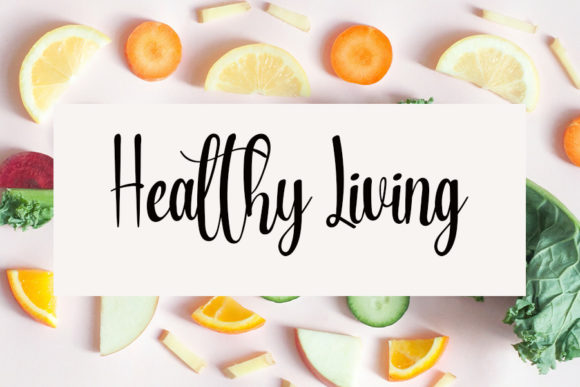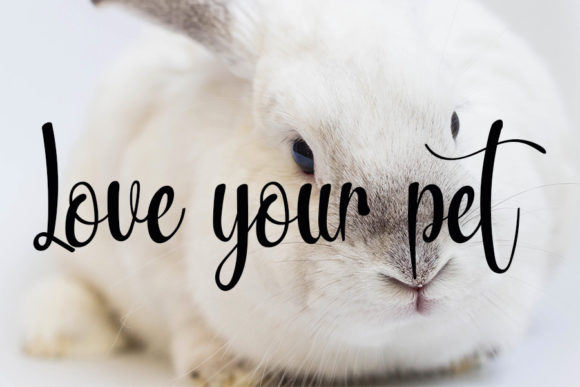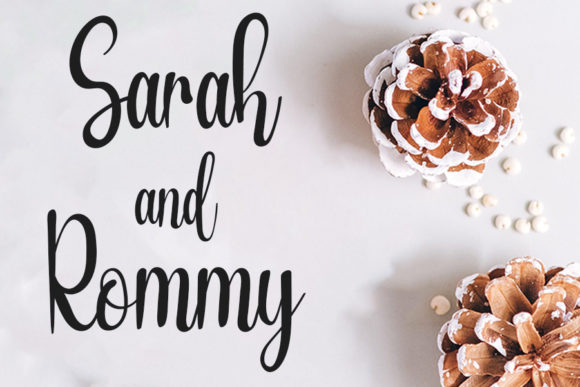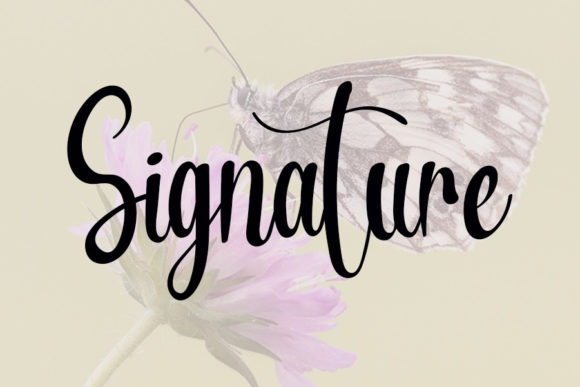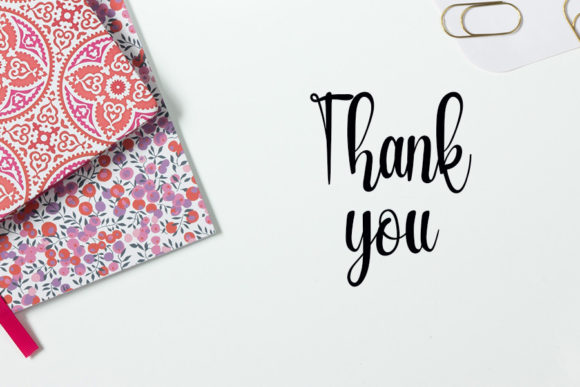
Natasya Font
About Natasya Font
Natasya is a cool handwritten font that effortlessly combines a modern vibe with spotless form, drawing inspiration from classic calligraphy. With a balanced and varied appearance, this font strikes the perfect equilibrium—not too thin and not too thick. Its design was intricately crafted to elevate the aesthetic of your projects, bringing a touch of sophistication to your creative endeavors.
At its core, Natasya emanates a cool and contemporary energy. The handwritten style adds a personal and approachable touch, making it suitable for a wide range of projects where a modern yet refined aesthetic is desired. The font’s versatility shines through, adapting seamlessly to diverse applications, from digital platforms to printed materials.
The influence of classic calligraphy in Natasya contributes to its spotless and elegant form. Each letter is meticulously designed to enhance the overall beauty of the font. The result is a typeface that reflects both tradition and modernity, making it a unique and compelling choice for those seeking a harmonious blend of styles.
One of Natasya’s notable features is its balanced and varied appearance. The strokes and curves are thoughtfully arranged, creating a visual dynamic that captures attention without being overpowering. This design choice ensures that the font remains versatile, enhancing the beauty of a myriad of projects, from branding and logos to creative writing and beyond.
Whether you’re working on a digital interface or crafting tangible designs, Natasya adds a level of sophistication that complements the contemporary aesthetic. Its cool handwritten style is not only visually appealing but also functional, offering a refreshing take on classic calligraphy for modern design needs.
In summary, Natasya stands out as a cool handwritten font with a modern vibe and spotless form. Its balanced and varied appearance, inspired by classic calligraphy, makes it a compelling choice for projects that require a touch of sophistication. Elevate the beauty of your designs with Natasya as it effortlessly enhances the visual appeal of your creative endeavors.